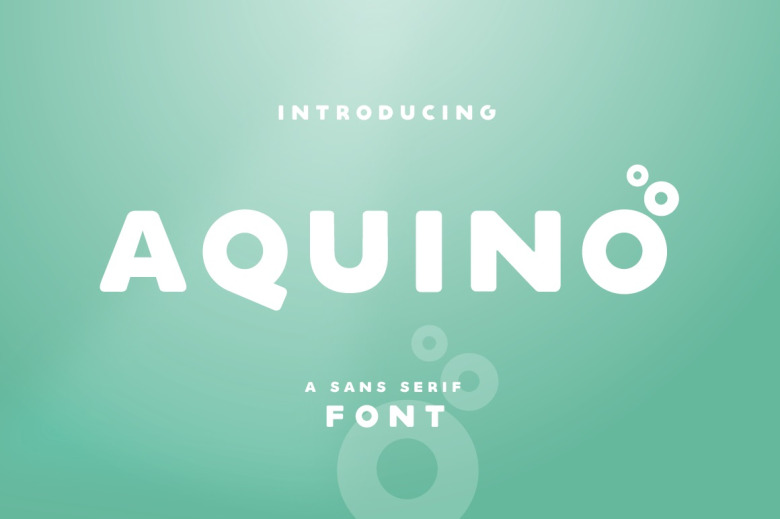
Aquino Font
Aquino is a simple and bold lettered display font. Add this font to your creative designs and notice how it will make them stand out!
Aquino Sans Serif Font